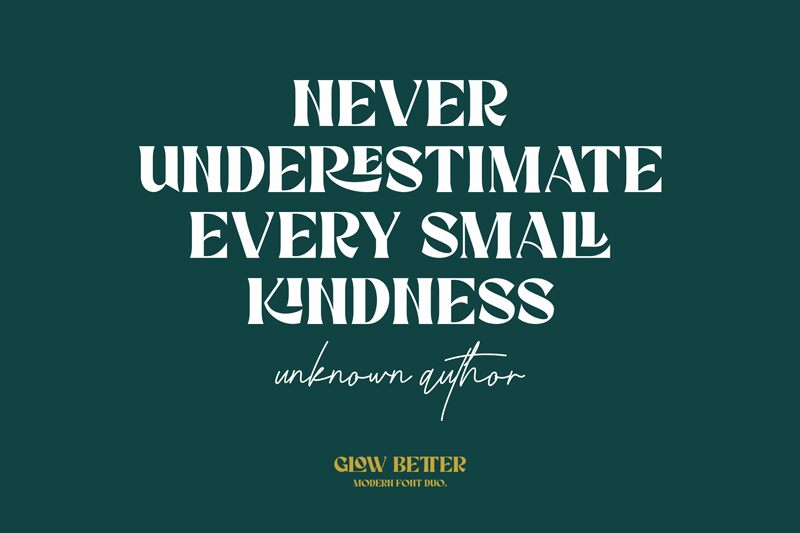
Glow Better
Glow Better is a retro, bold display font created by designer Riyadh Rahman. It's perfect for creating eye-catching posters, logos, and advertisements with a unique vintage touch. Bring your projects to life with this stylish font!